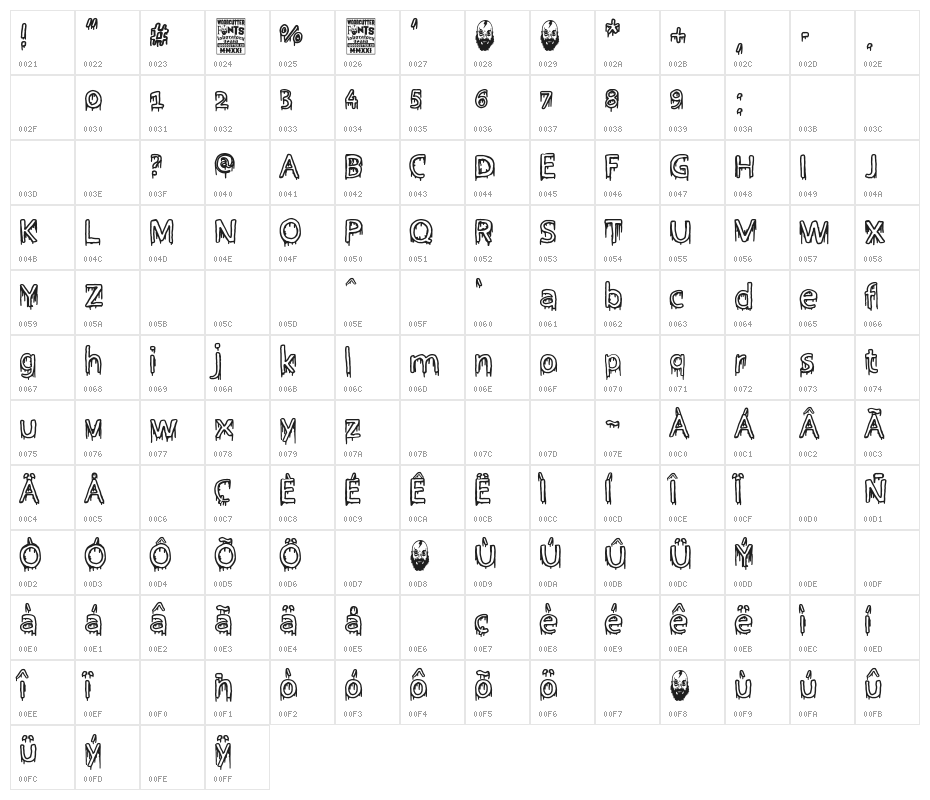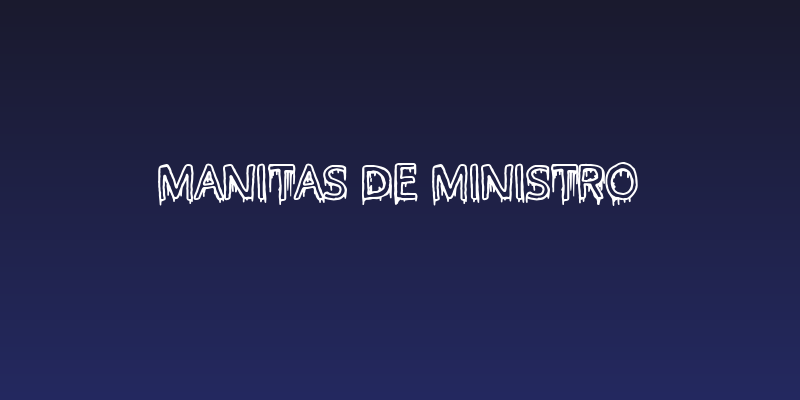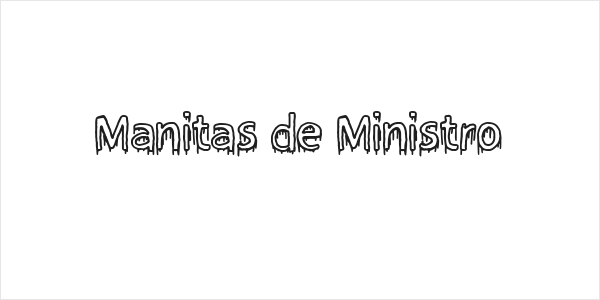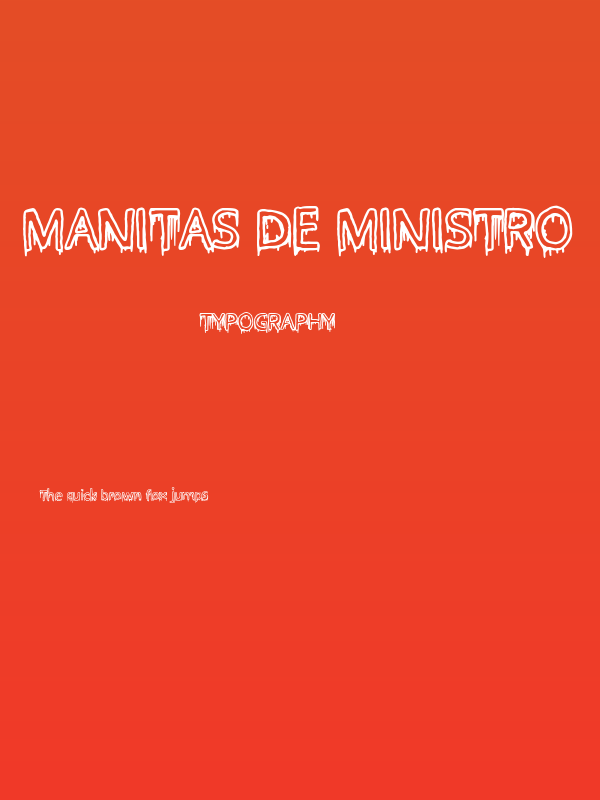
Manitas de Ministro Font
This font features a unique, dripping effect that gives the impression of melting or liquid letters. The uppercase and lowercase characters maintain a consistent style, with each letter appearing as if it is slowly dripping downwards. The numbers and special characters follow the same design, creating a cohesive look across all elements. The bold, thick strokes enhance the dramatic effect, making it ideal for eye-catching designs. The font's playful yet slightly eerie appearance makes it suitable for themes related to horror, Halloween, or anything requiring a quirky, unconventional look.
| Proposed Projects | Ideal for Halloween-themed designs, horror movie posters, spooky event invitations, or any creative project needing a unique, eye-catching font. |